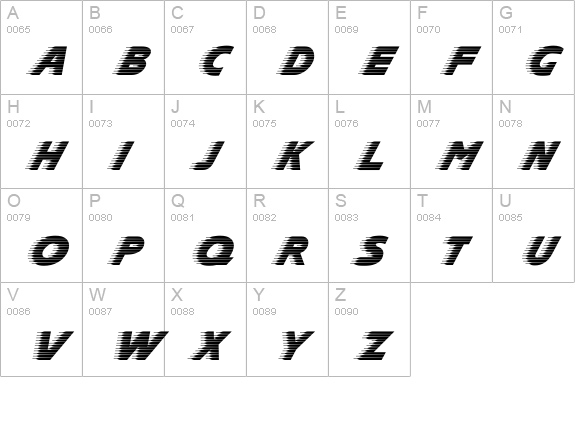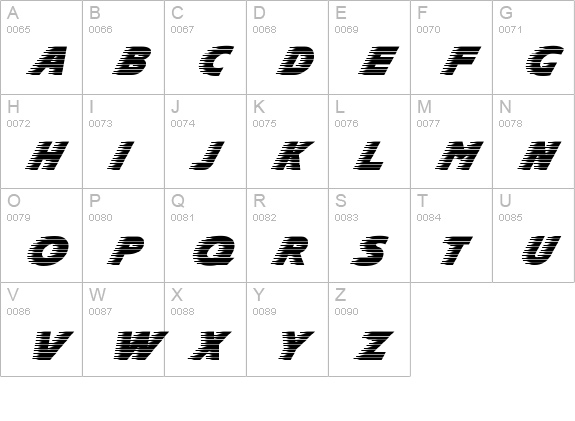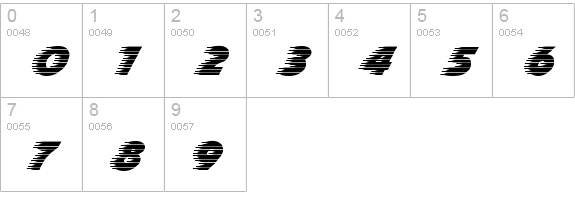
DG_Slipstream Font Details
DG_Slipstream font is a modern and stylish typeface that exudes a sense of movement and fluidity. Its sleek lines and dynamic curves make it perfect for creating eye-catching designs that demand attention. Whether you're working on a project that needs a touch of sophistication or one that requires a contemporary edge, DG_Slipstream is the ideal choice. What's even better is that DG_Slipstream is available for free download at FontsMarket.com. This means you can easily access this versatile font without having to break the bank. So why wait? Add DG_Slipstream to your font collection today and watch your designs come to life with its unique charm and elegance.